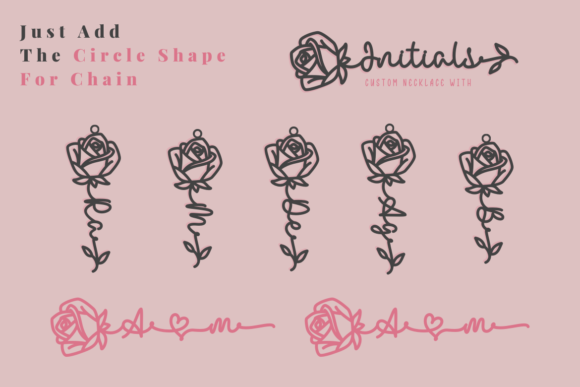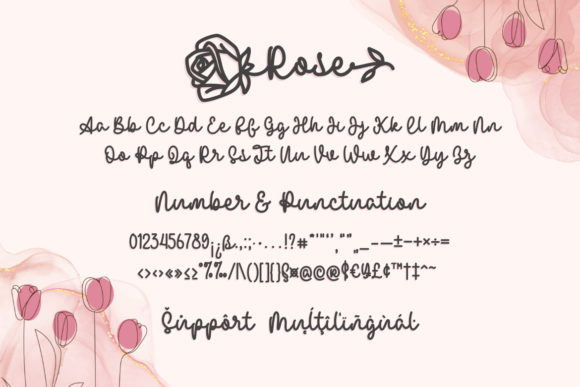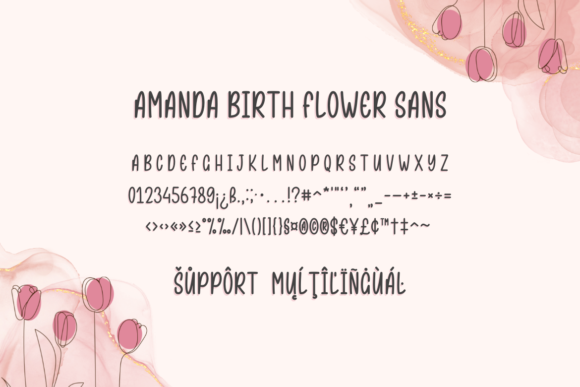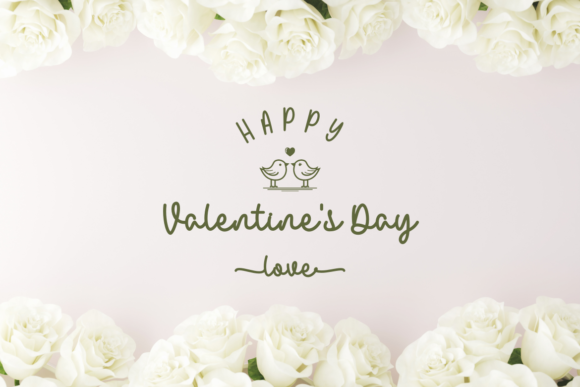
Rose Birth Flower Duo Font
Rose Birth Flower Duo is a vintage styled script and sans serif font, carefully created with a touch of elegance. Whether you’re looking for fonts for Instagram or calligraphy scripts for DIY projects, this font will turn any creative idea into a true piece of art!
June birth flower